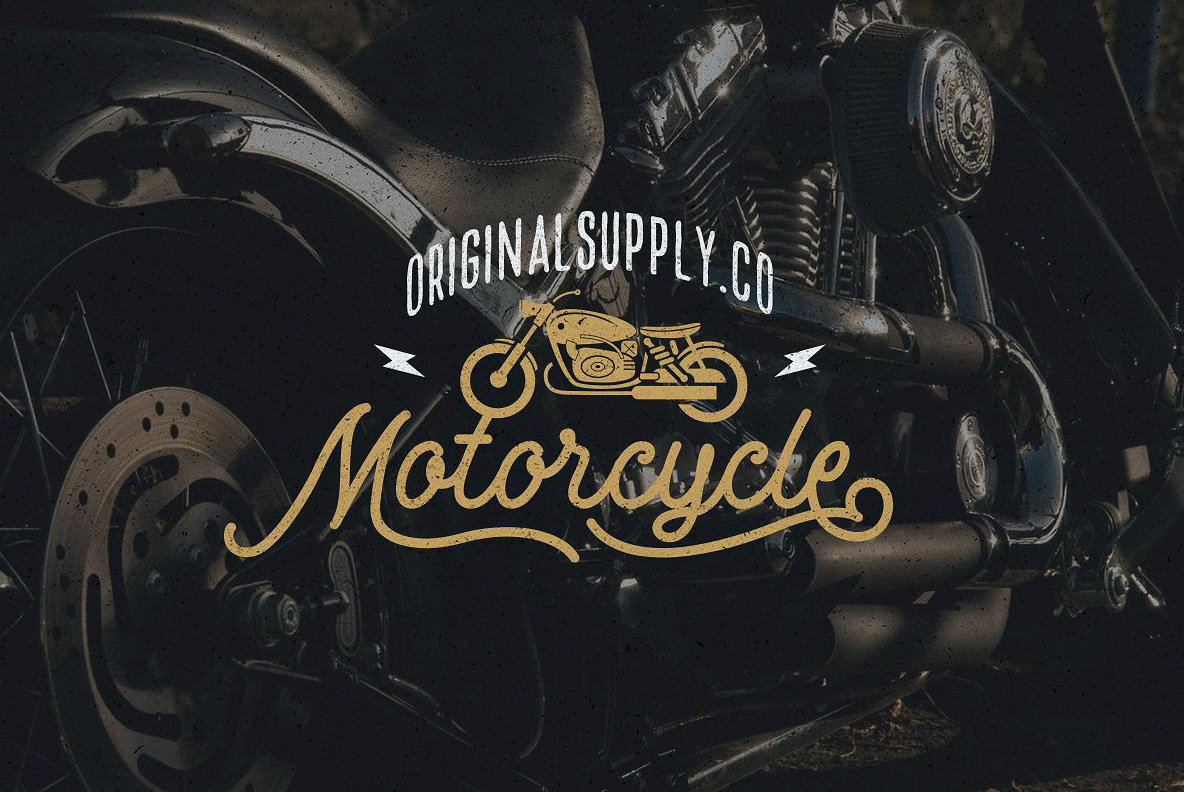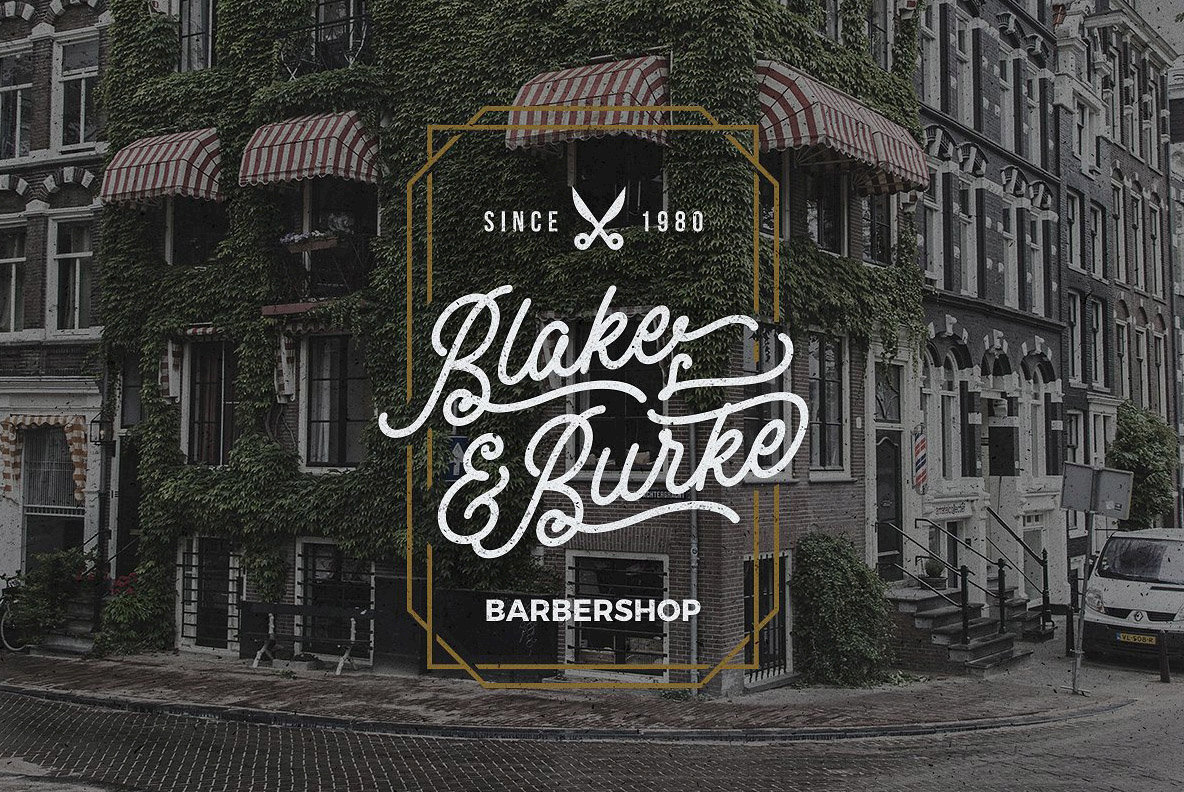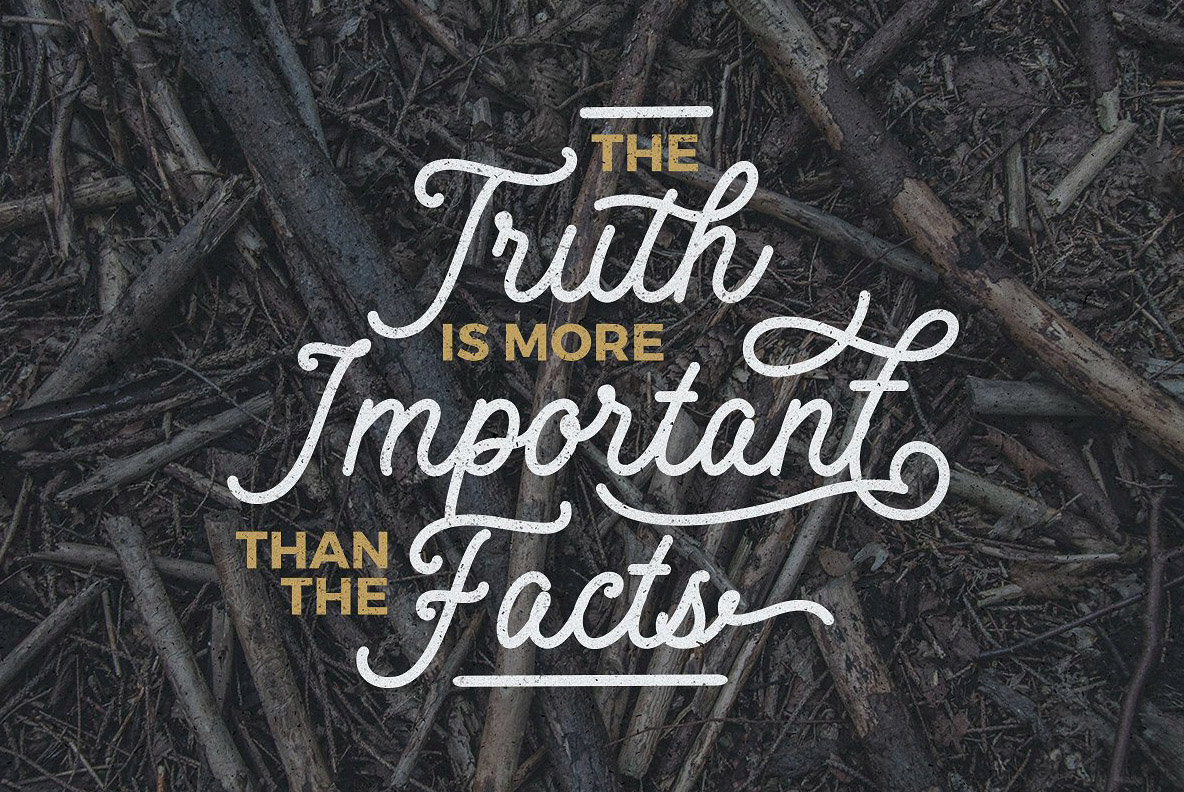
Motherline Vintage Toolbox Font
Motherline is a monoline, vintage styled, script design which was created based on hand lettering. Motherline contains many features such as ligatures, stylistic alternates, swashes, along with total 650+ glyphs.